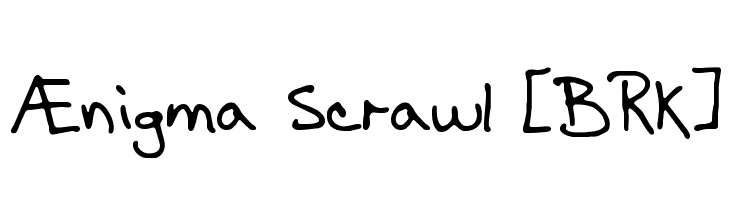
• '89 Speed Affair Semi-Italic Font
A bold, italicized font with sharp, angular edges, exuding speed and energy.
• '89 Speed Affair Semi-Leftalic Font
A bold, angular font with a dynamic, italicized style.
• '89 Speed Affair Super-Italic Font
A bold, italicized font with a dynamic, speedy style.
• '89 Speed Affair Super-Left Font
A bold, slanted font with a dynamic, futuristic style.
• '89 Speed Affair Twotone Font
A bold, two-tone font with a dynamic, striped design for a sense of speed.
• '89 Speed Affair Twotone Ital Font
A bold, italicized font with a two-tone effect and dynamic, speedy design.
• '89 Speed Affair Ultra Italic Font
A bold, italicized font with a dynamic and modern style.
• Äggstock Font
A bold, handwritten font with dynamic and expressive strokes.
• ÄggstockGravid Font
A bold, playful handwritten font with thick strokes and dynamic flow.
• Ænigma Scrawl 3 BRK Font